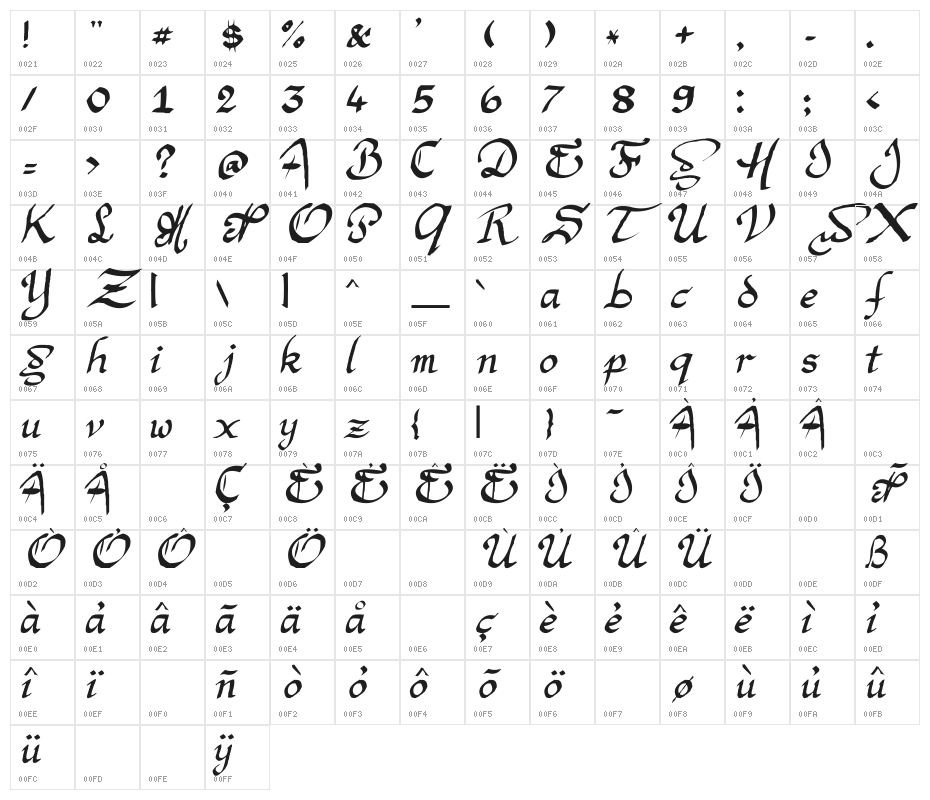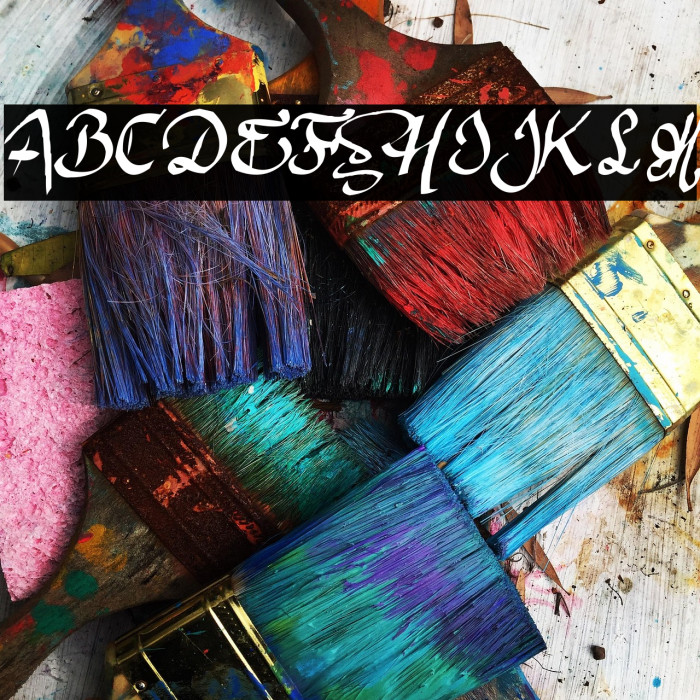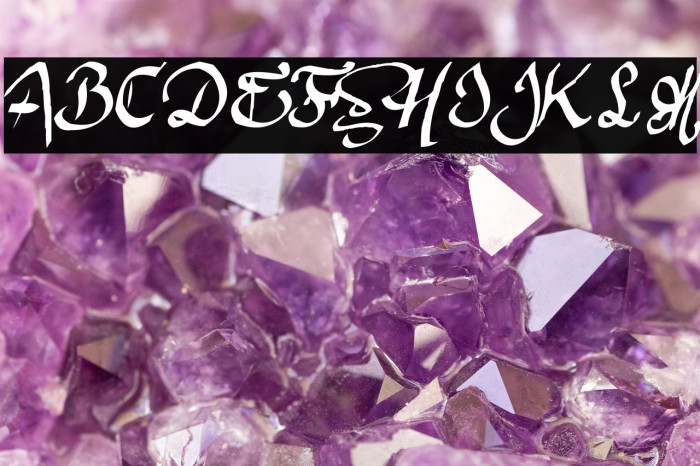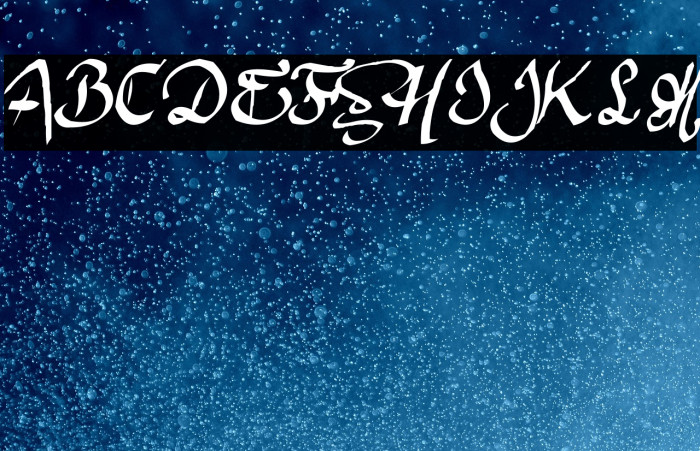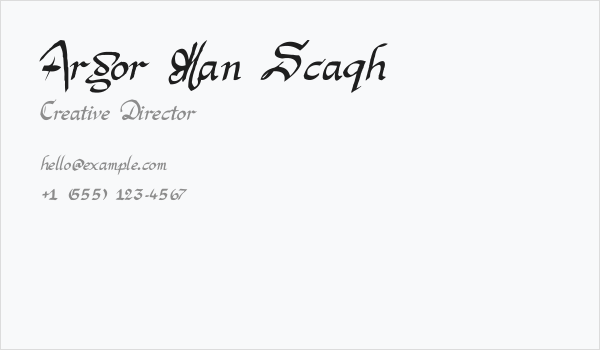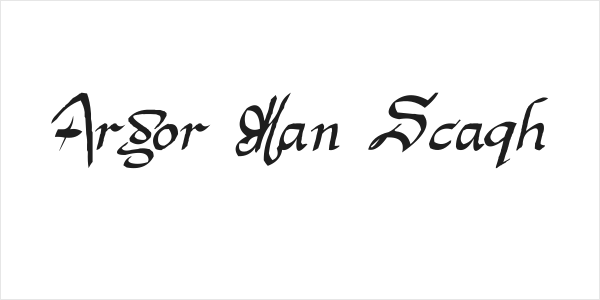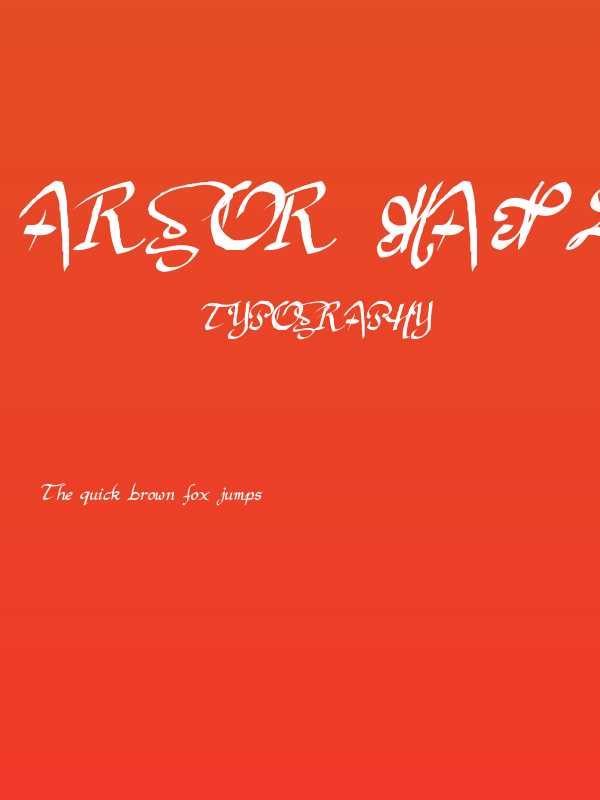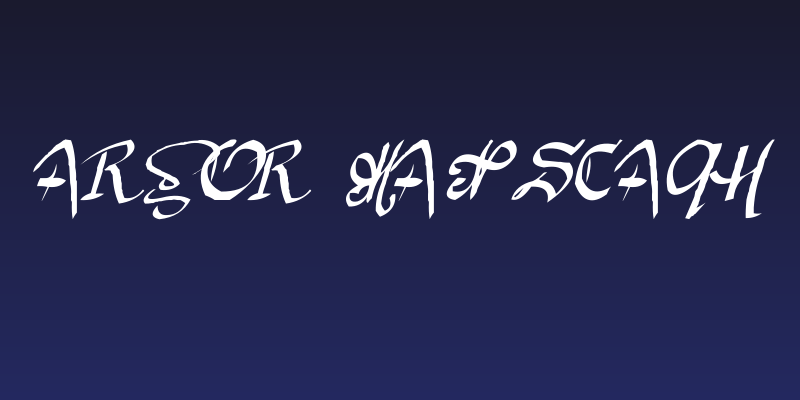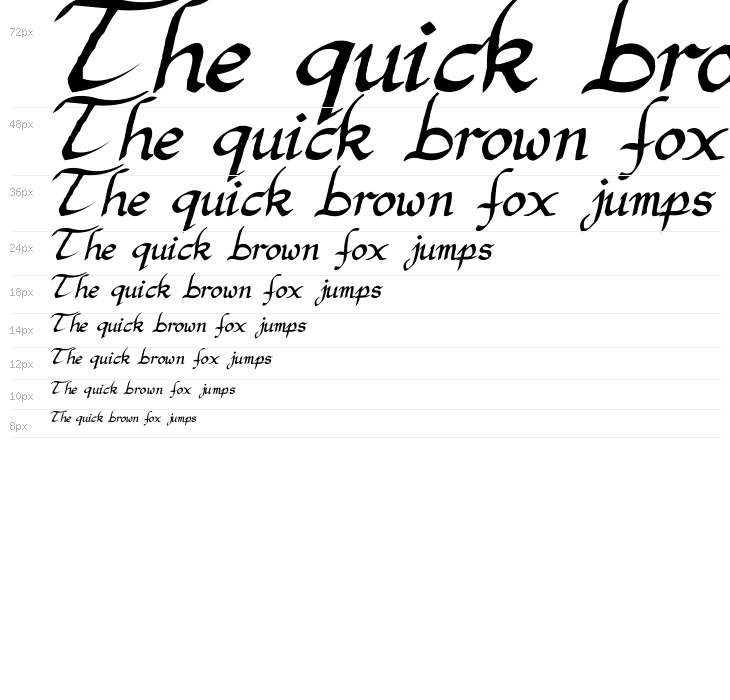
Argor Man Scaqh Font
Argor Man Scaqh Description
This font features a dramatic and expressive style, reminiscent of traditional calligraphy with a modern twist. The characters are bold and dynamic, with sweeping curves and sharp angles that create a sense of movement and energy. The uppercase letters are particularly ornate, with intricate flourishes that add a touch of elegance and sophistication. The lowercase letters maintain a consistent style, offering a harmonious blend of formality and creativity. The numerals and special characters are equally stylized, ensuring a cohesive look across all text elements. This font is perfect for projects that require a strong visual impact and a touch of artistic flair.